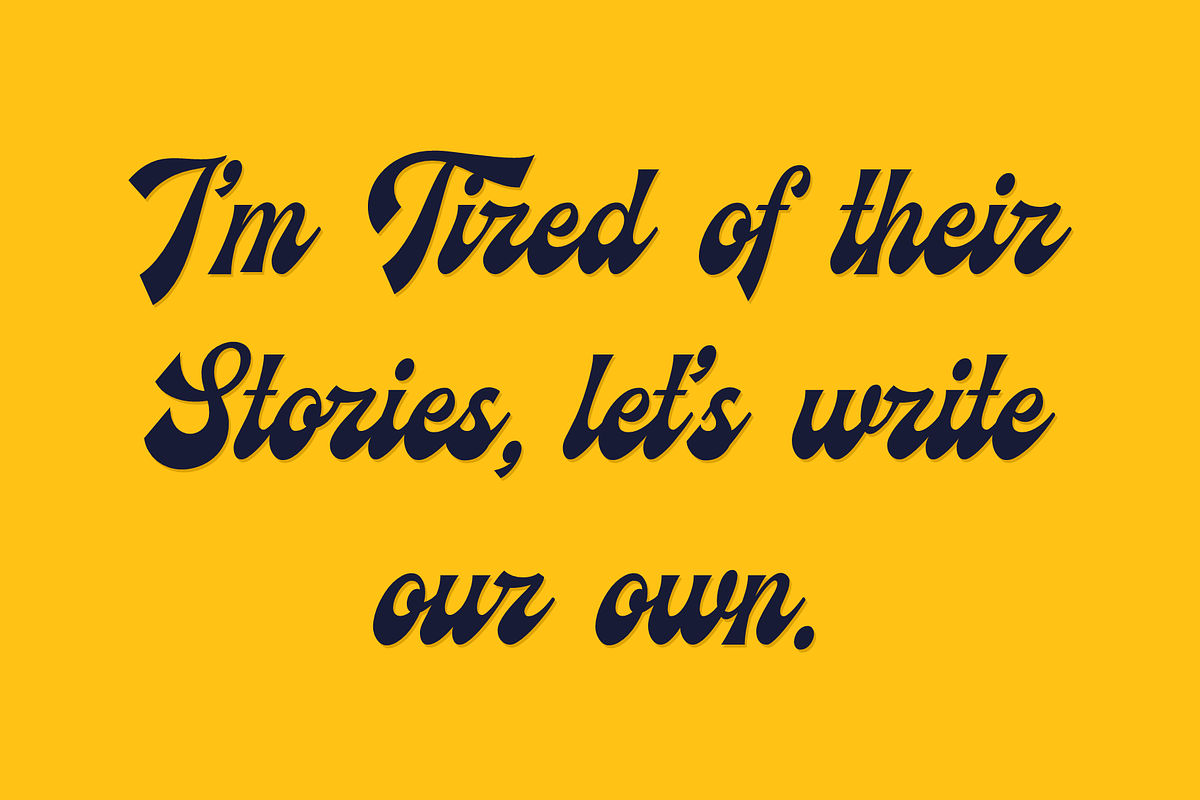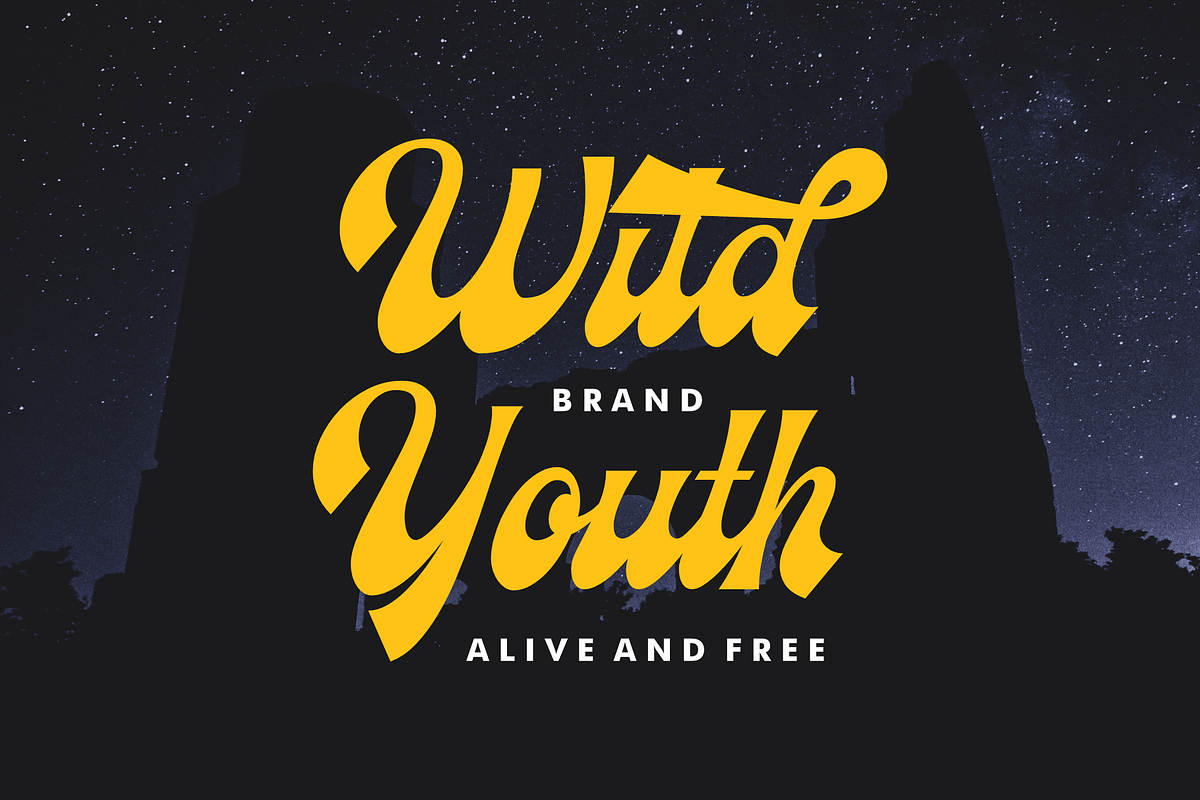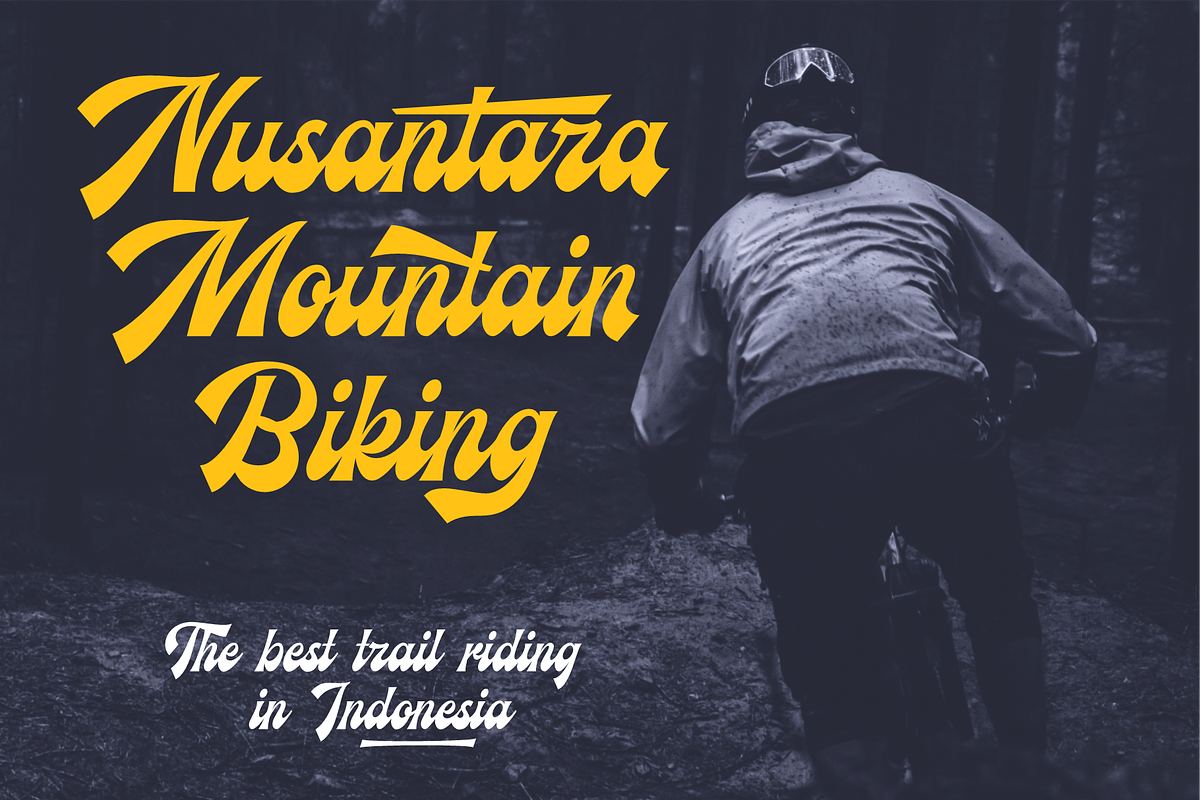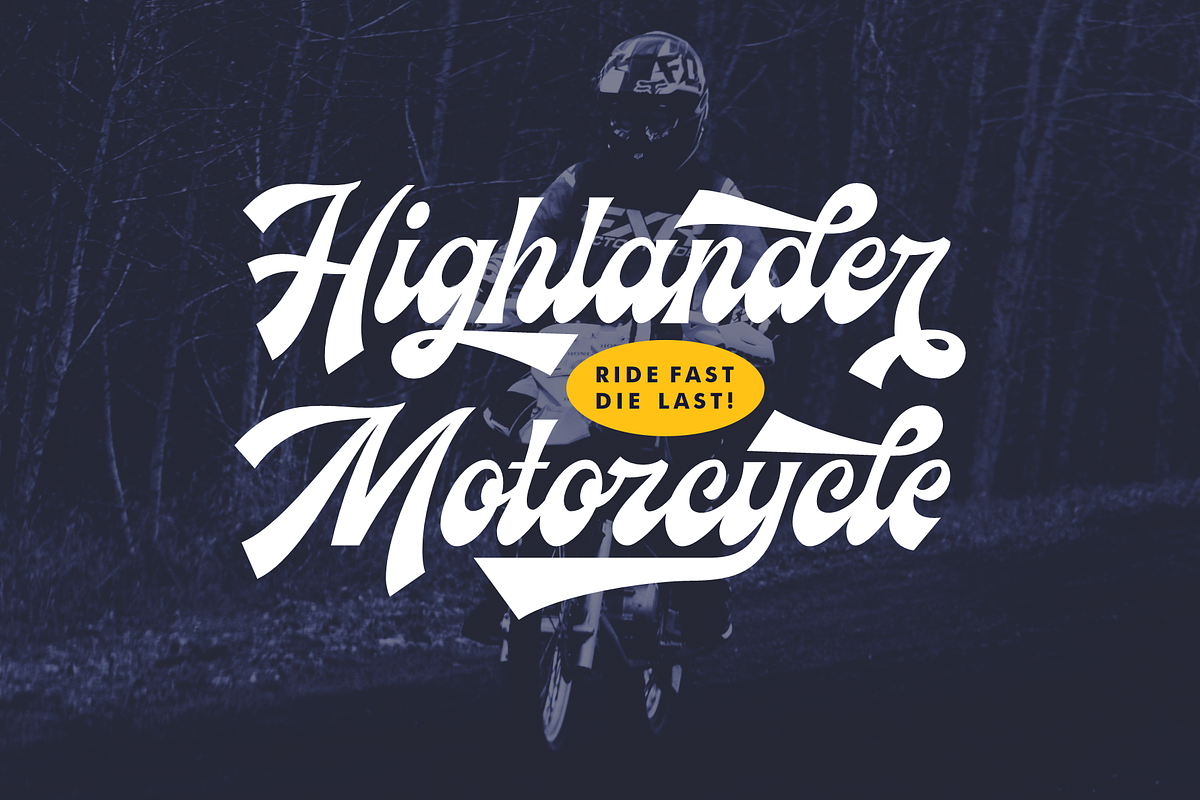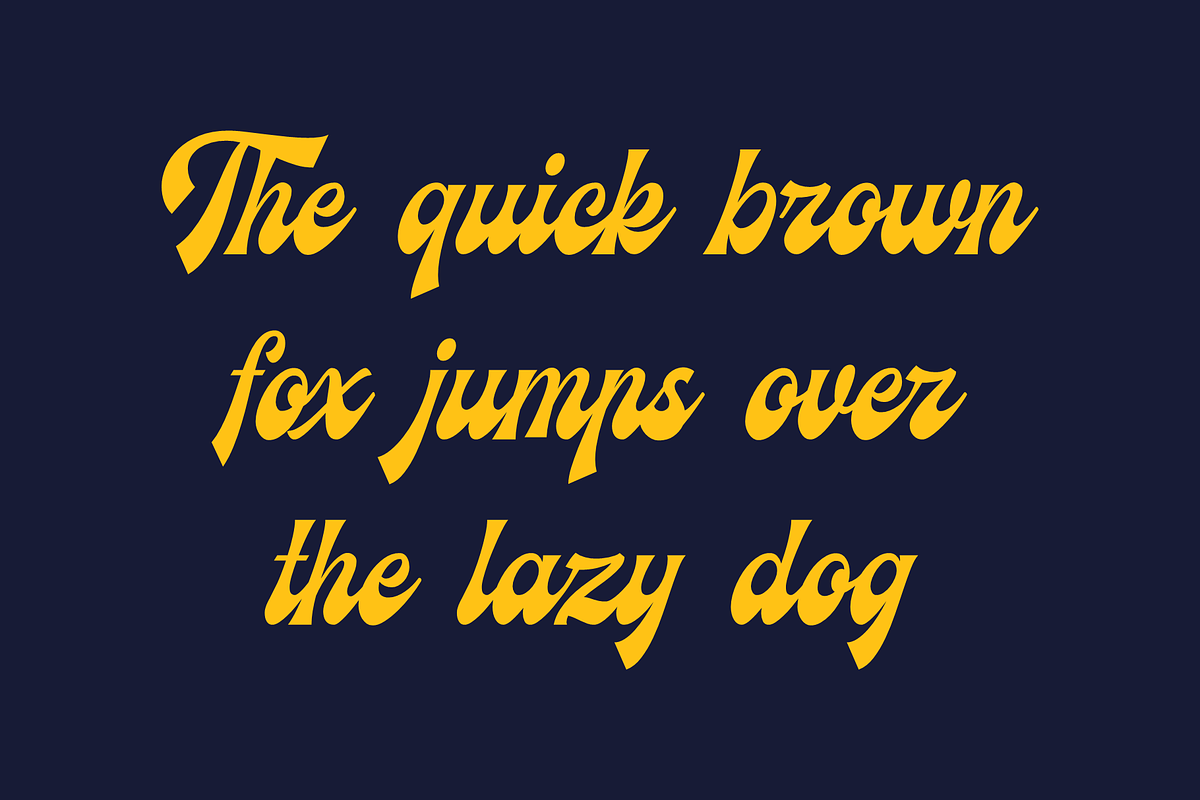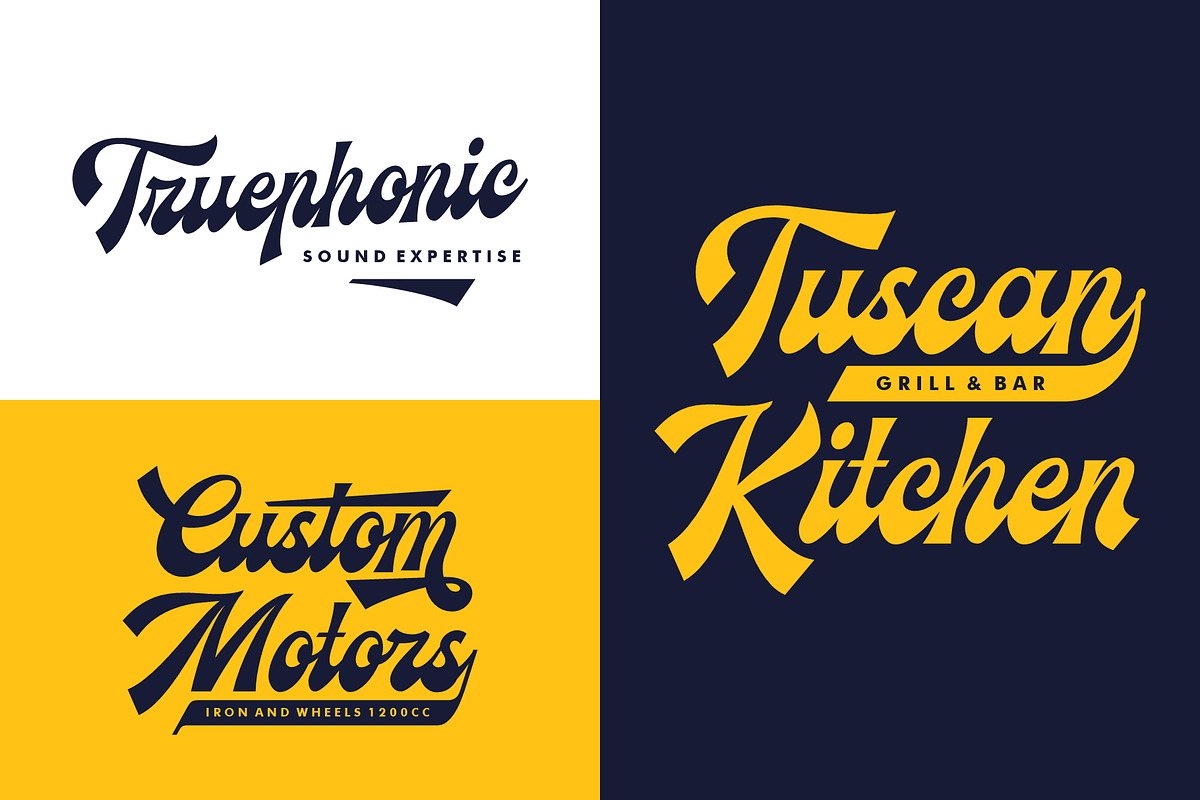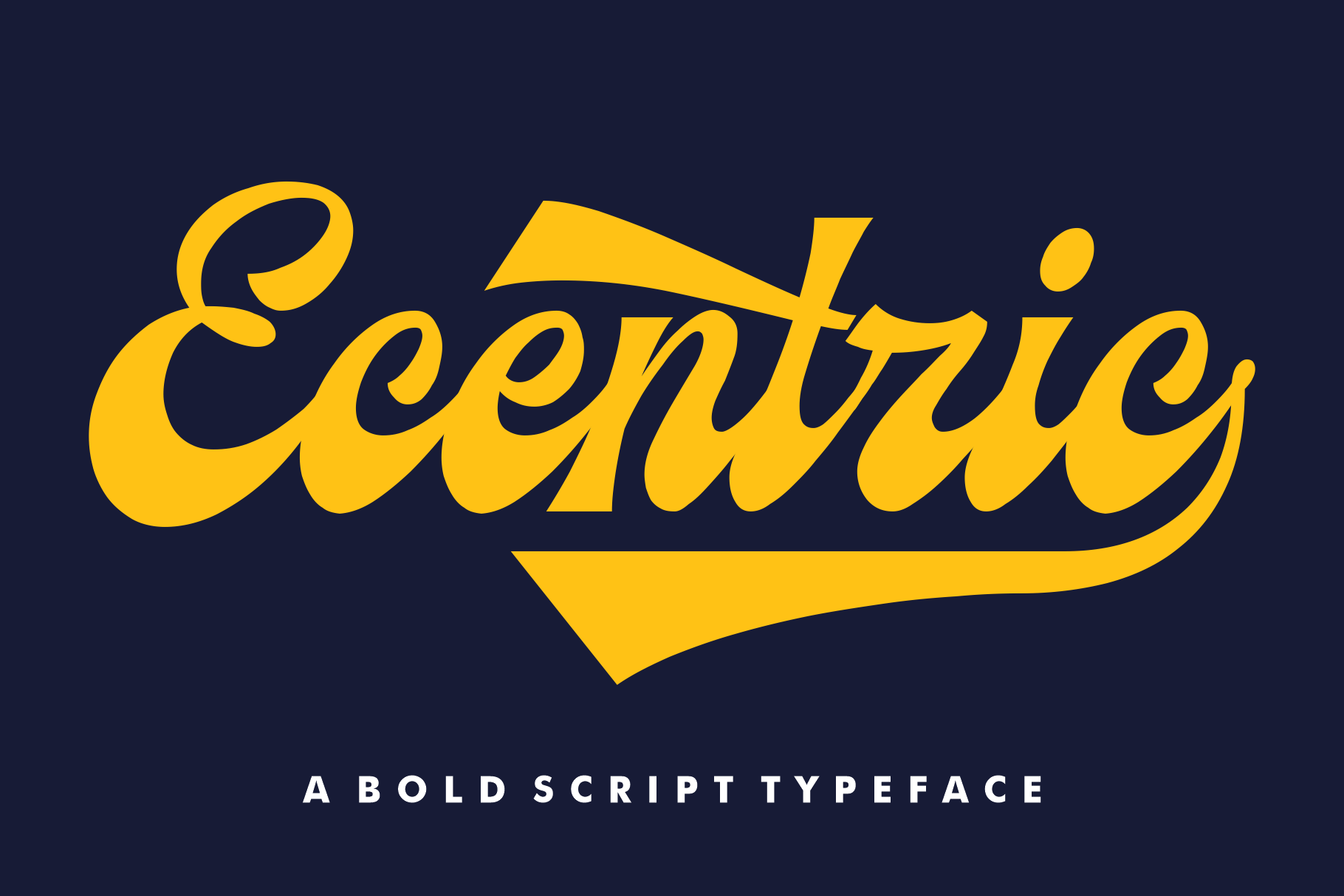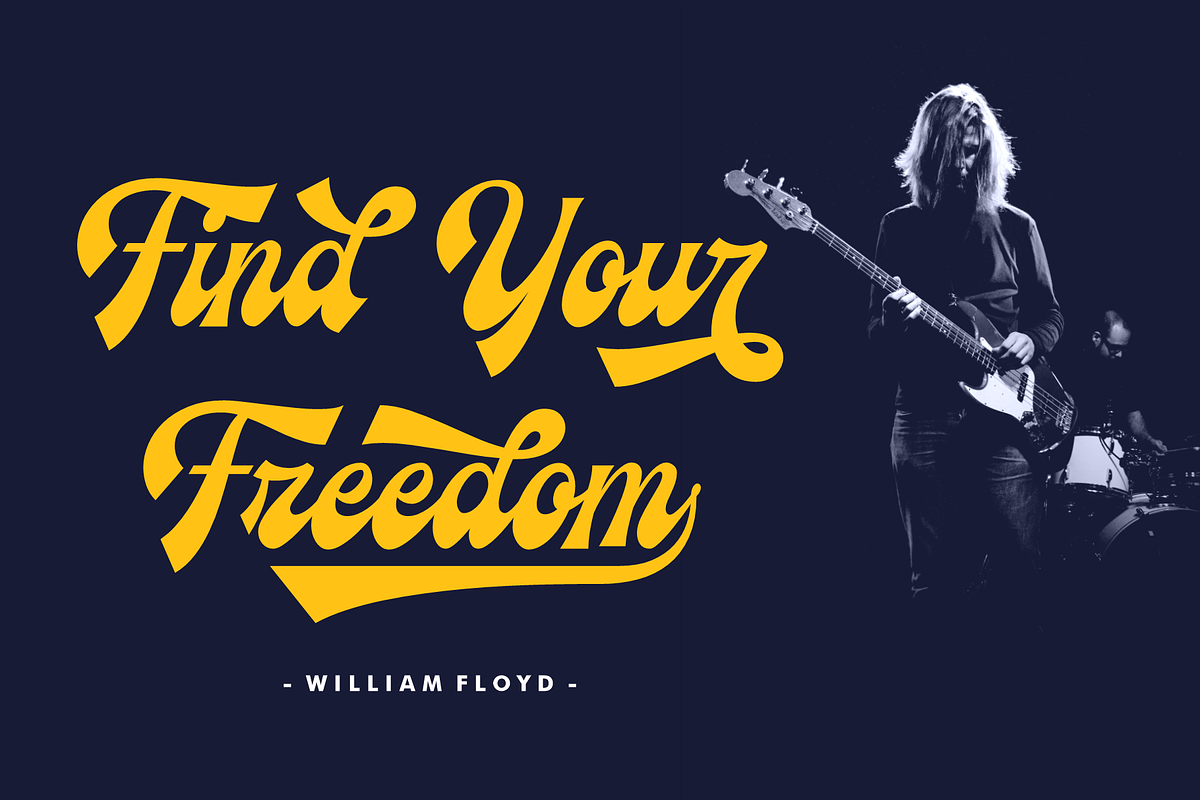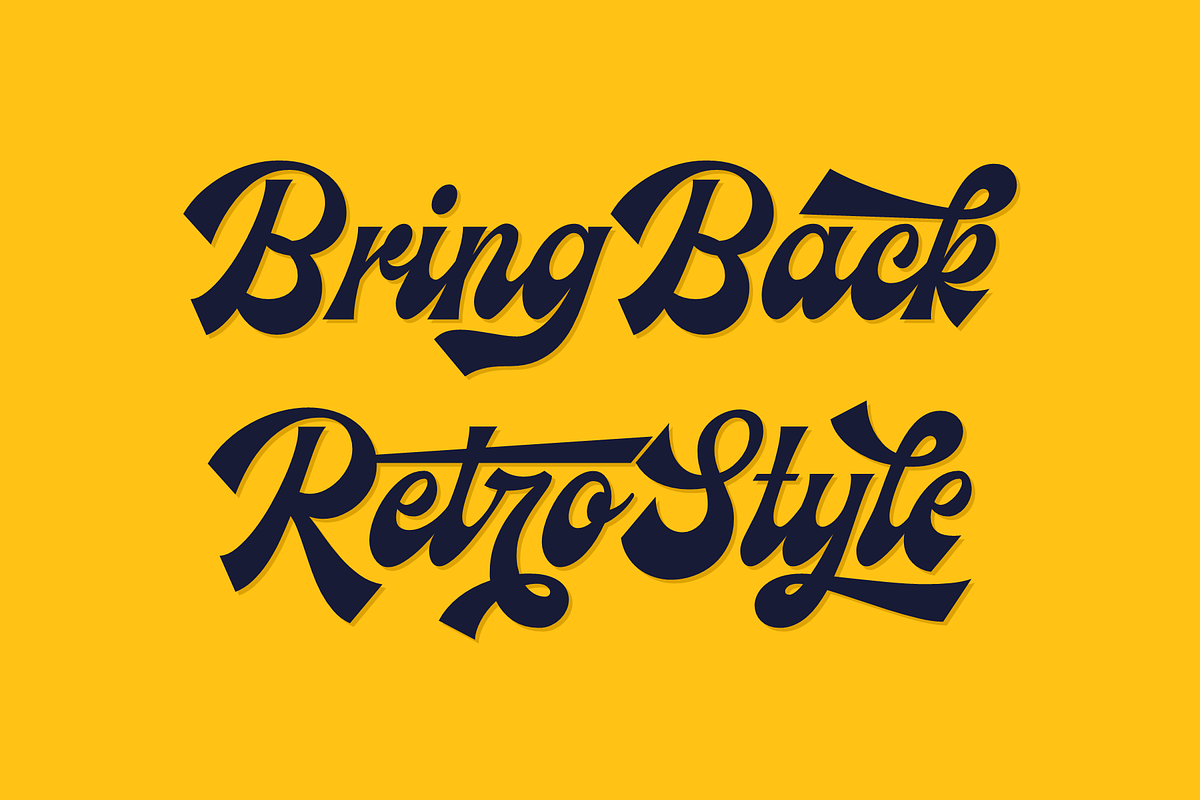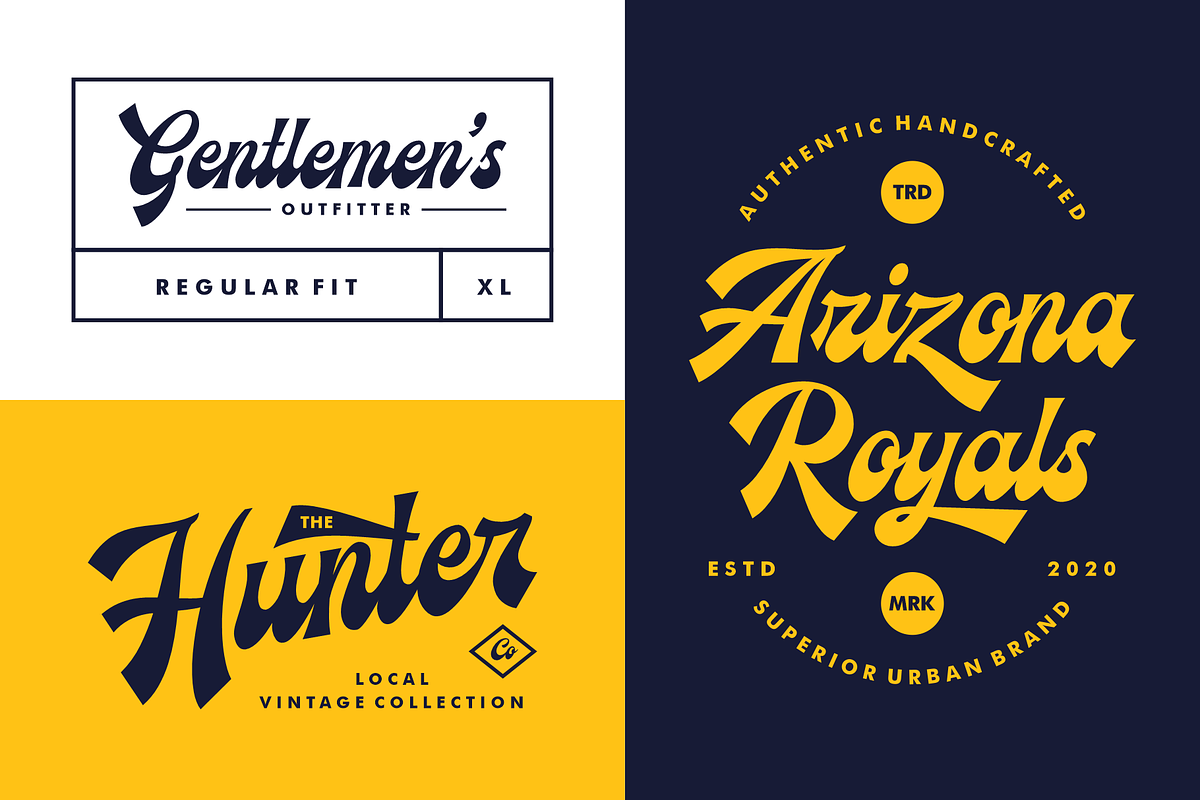
Ecentric Retro Fonts
Introducing Ecentric Retro Fonts are inspired by the old ads, labels, and signs from 50/60´s. Ecentric Retro Fonts, a typography collection, will give your retro design a cool and vintage atmosphere. Modular and multifunctional, this font can be mixed with any other font without losing the retro lineal style. Use this retro typeface for headlines or short copy, or to add a classic vintage design to merchandise, products, branding, and logotype. Enjoy this joyful typeface!
Ecentric Retro Fonts features:
- A full set of upper & lowercase characters
- A full set of upper & lowercase characters (Alternates)